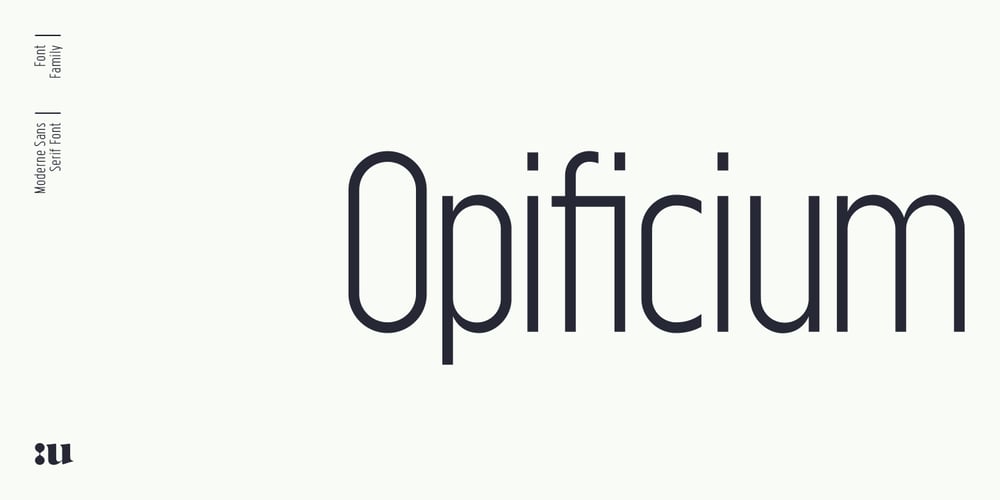
Opificium Sans Font Family was designed by Nicola Manzari and published by Unio Creative Solutions. Opificium Sans contains 6 styles and family package options. Opificium is a visual contemporary sans serif typeface composed of three weights plus their matching obliques. The industrial design creates and develops concepts and specifications that optimize the function, value, and appearance of products. Indeed, this is reflected in the concept behind each glyph of our font family which geometry has required particular attention for the purpose to preserve optical exactness, along with proportions continuity. The whole design of this typeface is in fact ruled by versatility and legibility and makes it functional for any text in small and large sizes. “Opificium” typeface includes over 450 characters with coverage for several languages using the Latin alphabet as well as the Greek alphabet. The font family provides advanced typographical support such as a significant number of neat standard and discretionary ligatures and broad support of OpenType features (OTF).Recommended for headlines, logos, and any destination of use such as corporate identity, typography, posters, web design, and social feeds.